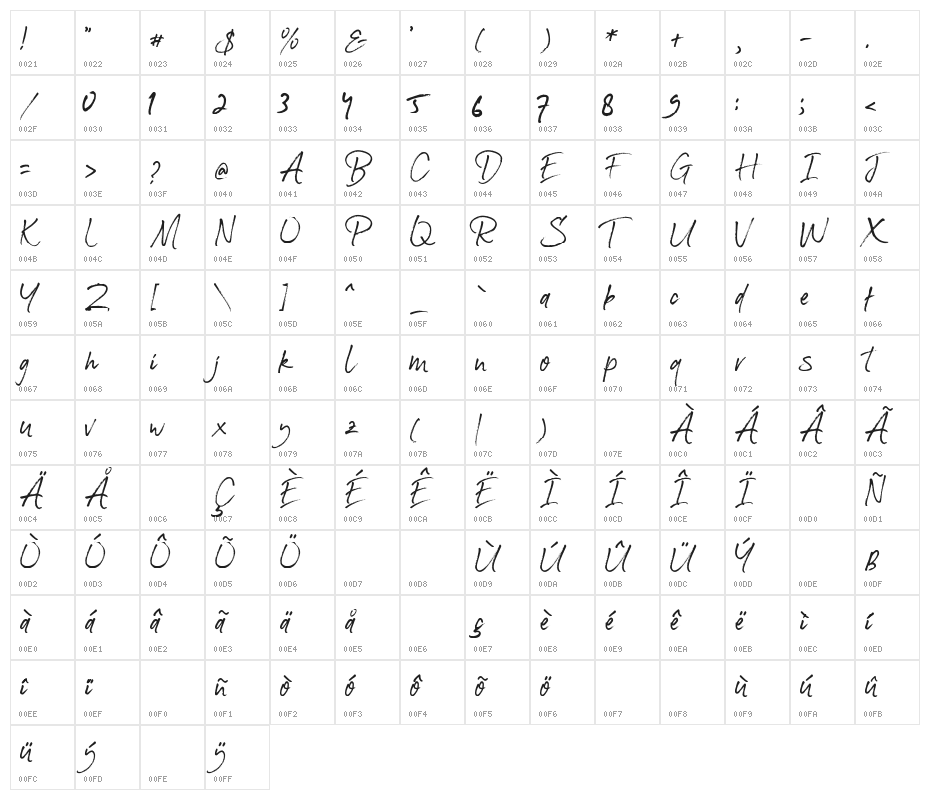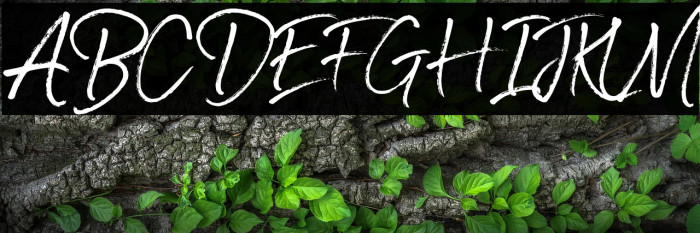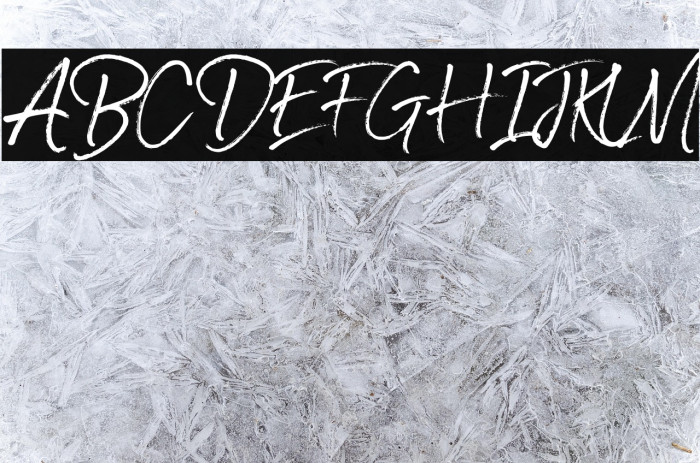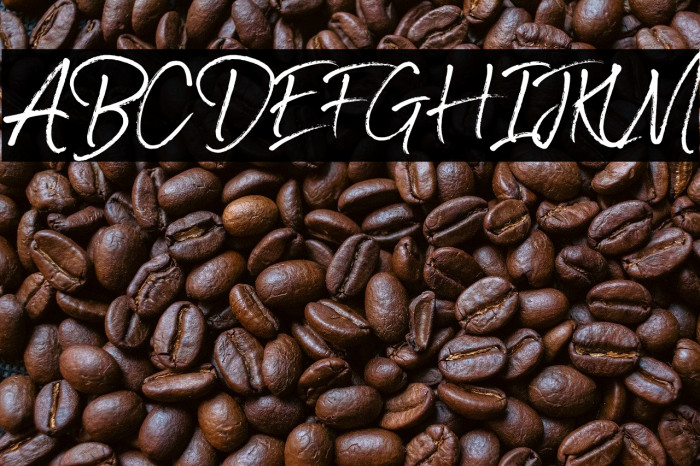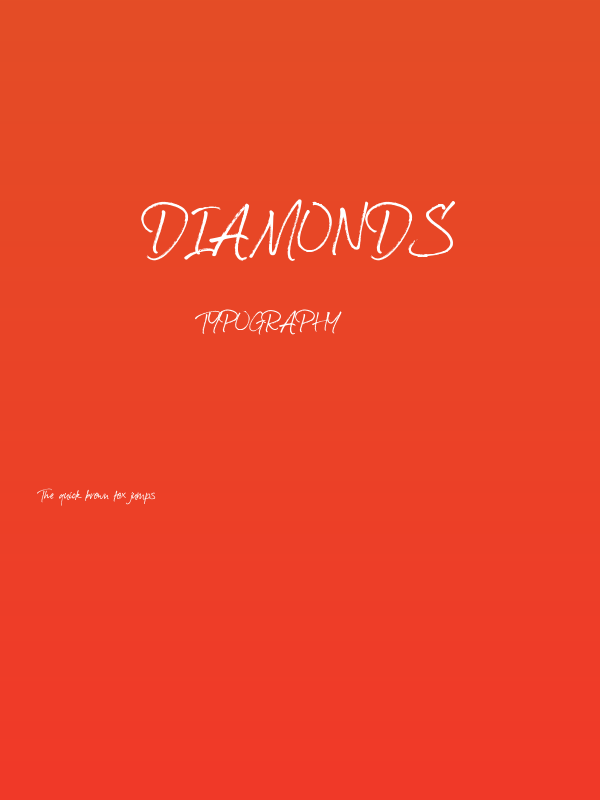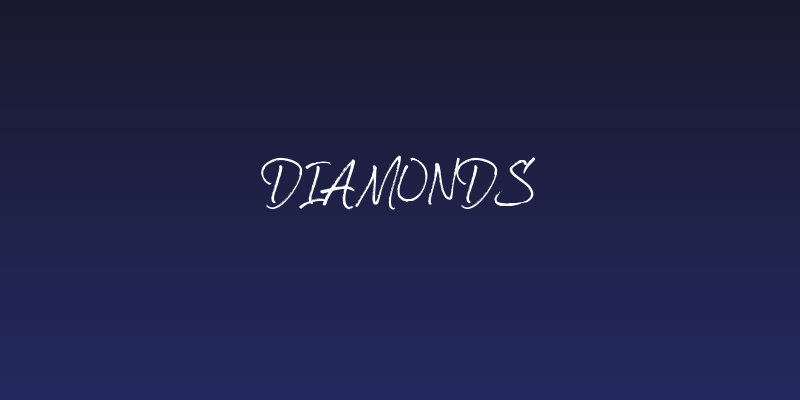
Diamonds Font
Diamonds Description
This font features a dynamic and expressive handwritten style, characterized by its fluid strokes and natural flow. The uppercase letters are bold and slightly slanted, giving a sense of movement and energy. The lowercase letters maintain a consistent style, with a casual and approachable feel. Numbers and special characters are crafted with the same attention to detail, ensuring a cohesive look across all elements. The brush-like texture adds a personal touch, making it ideal for projects that require a human touch or artistic flair.
Use CaseLogos, Headlines, Artistic projects
Proposed ProjectsIdeal for greeting cards, invitations, branding projects, and artistic posters.